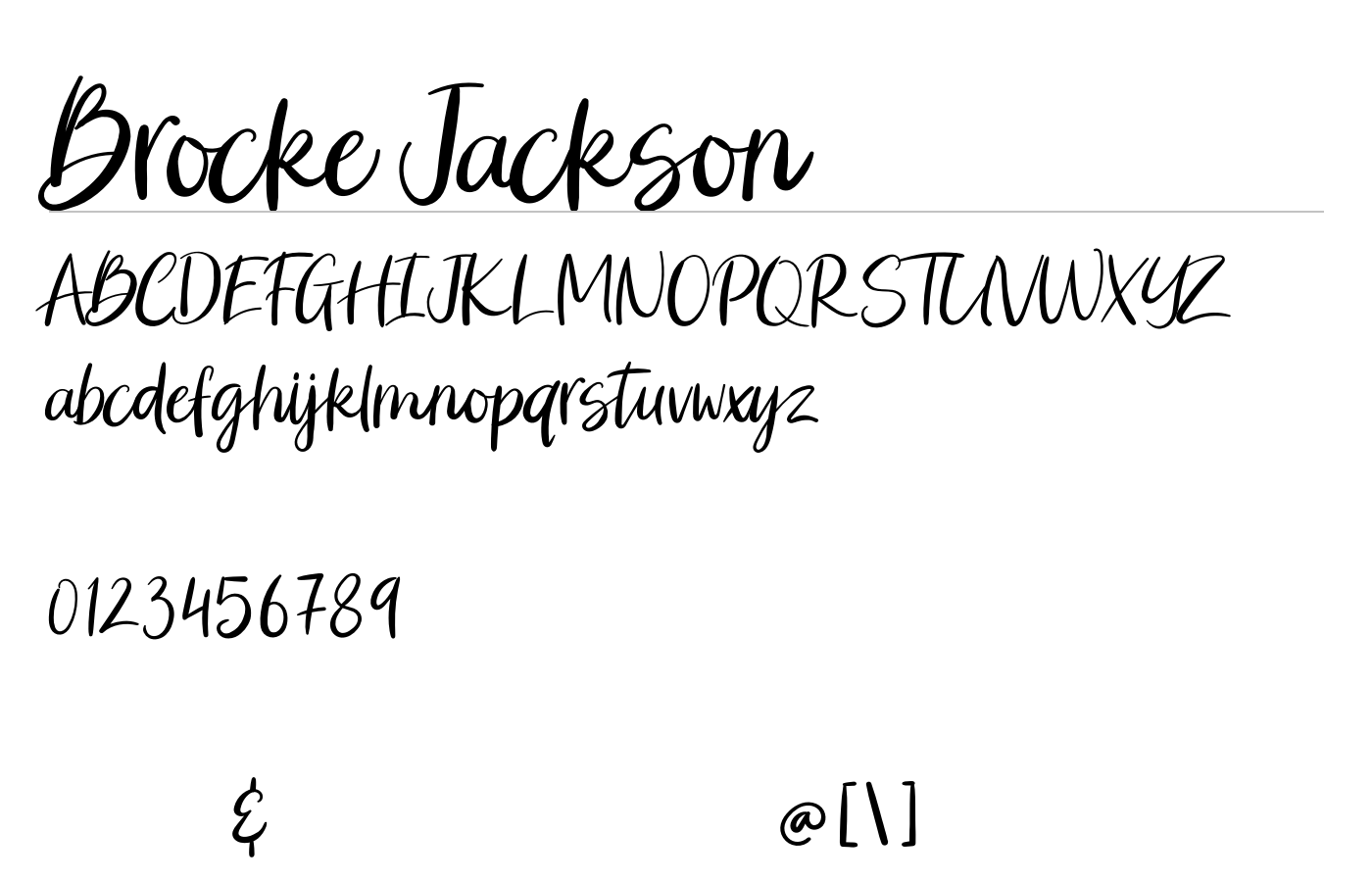
Brocke Jackson is a playful and elegant script font with a handwritten feel, featuring smooth, flowing strokes and moderate contrast. Its tall, slightly narrow letterforms with distinctive loops and casual flair make it perfect for branding, invitations, and creative projects that seek a personal and stylish touch. This font works especially well in headlines and logos where a warm, approachable, yet refined look is desired.
Brocke Jackson Font
About Brocke Jackson Font
| Font family | Brocke Jackson Font |
| Designer | Risca Anitawati |